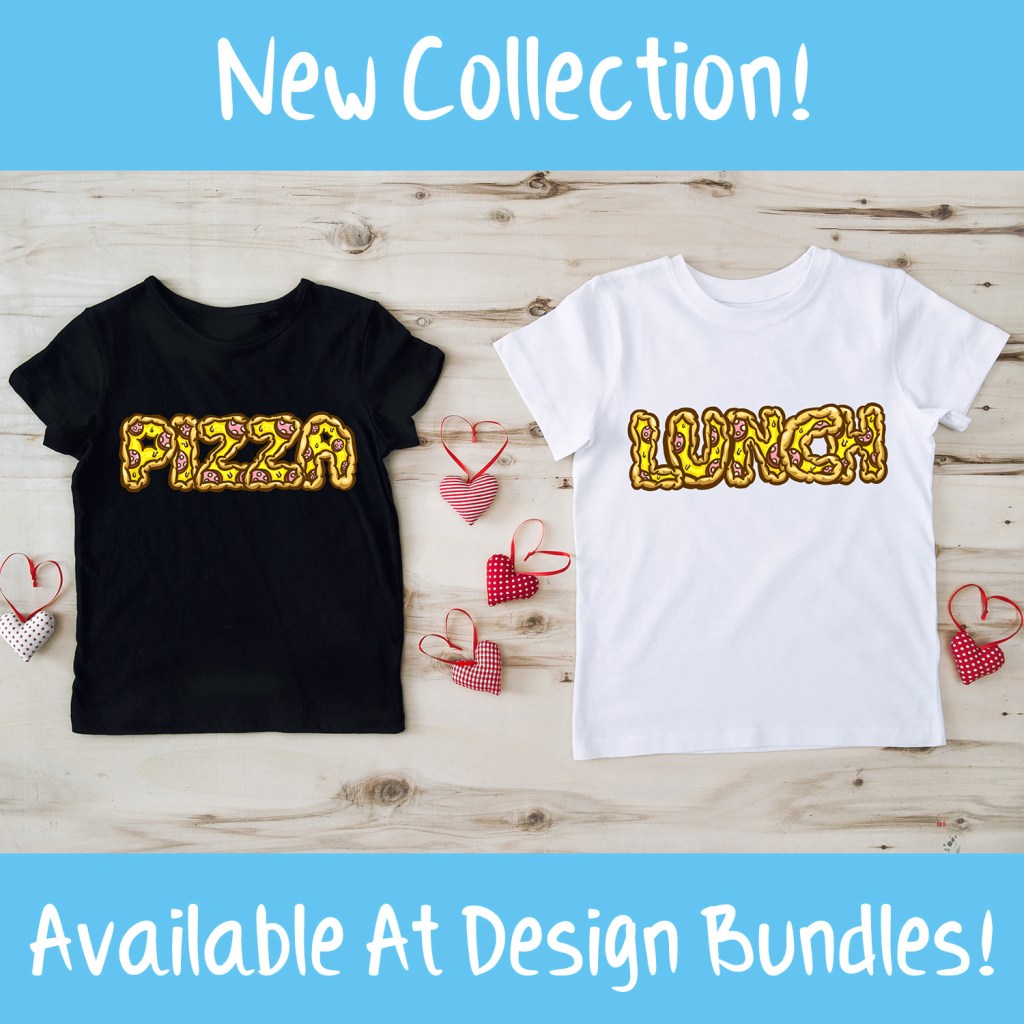
I think I’ve lived off pizza the past month. A cold frosty January should conjure up stews and roast dinners, but no, I’m far too lazy for that. Pimp a pizza! So I’m guessing this is where the inspiration for my new lettering design has come from. Bring out the pepperoni pizzas!